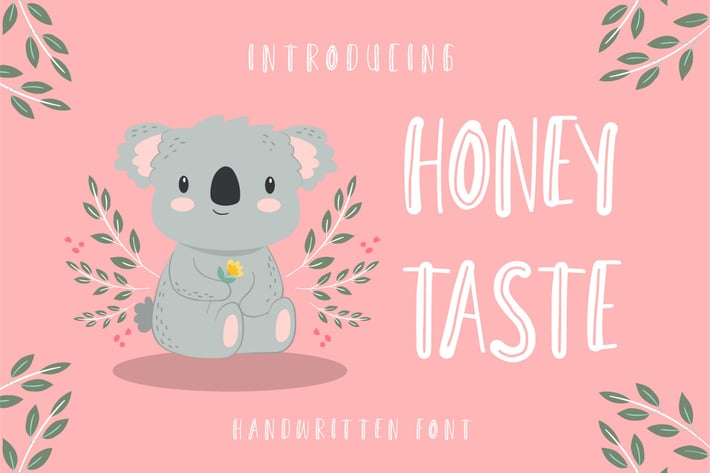
Honey Taste - Cute Handwritten Font
Honey Taste - 5 Display Font
Honey Taste is a playful and fun display font with 5 different styles in the font. Each style can be used for different purposes, and each style can be combined with another style. Enjoy this font :)
Ideal for logos, quotes, doodle, comic, books, greeting cards, toys, posters, baby clothing, picture books or anything that requires a fun and happiness look!